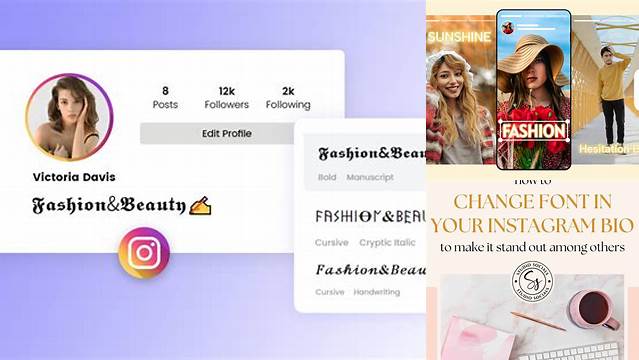
Cool Fonts For Instagram: Make Your Name Stand Out!
Hey guys! Want to make your Instagram profile pop? One of the coolest ways to do that is by using unique fonts in your Instagram name. But let's be real, Instagram doesn't exactly hand you a font buffet, right? So, how do you get those stylish fonts you see on other profiles? Don't worry, I've got you covered! This guide will walk you through everything you need to know about using different fonts for your Instagram name, so you can create a profile that truly reflects your personality or brand. We'll explore why choosing the right font matters, how to actually change your font (it's easier than you think!), and even give you some awesome font ideas to get you started. So, buckle up and get ready to transform your Instagram game!
Why Use Different Fonts for Your Instagram Name?
Okay, so you might be thinking, "Why even bother changing my font? Does it really make a difference?" The short answer? Absolutely! In the crowded world of Instagram, standing out is key. Your profile is often the first impression you make, and the font you use in your name is a subtle but powerful way to grab attention. Think of it as the visual handshake of your profile. A unique font can instantly communicate your vibe, whether it's playful, professional, artistic, or edgy. It helps you create a memorable identity and sets you apart from the millions of other users. Let's dive deeper into the benefits:
- Grabbing Attention: Let's face it, the Instagram feed is a scroll-fest. People are bombarded with content, so you need something that makes them stop and take notice. A unique font is like a little visual firework, catching the eye and making people curious about your profile. Instead of your name blending into the background, it becomes a mini-billboard, signaling that you're someone worth checking out. It's a simple yet effective way to stand out in a sea of sameness. Imagine scrolling through hundreds of profiles and suddenly seeing a name in a funky, handwritten-style font – you'd probably be more inclined to click, right?
- Reflecting Your Brand or Personality: Your Instagram name is a crucial part of your personal or brand identity. It's like your digital signature! The font you choose can be a powerful extension of that identity, communicating your brand's personality without saying a word. Are you a playful and creative brand? A whimsical or quirky font can reflect that. Are you a professional consultant? A clean and modern font might be a better fit. The font should align with the overall message you want to convey. It's about creating a cohesive visual experience for your followers, so they instantly understand what you're about. Think of it as dressing up your name to match your brand's style.
- Creating a Unique Identity: In a world where usernames are often duplicated or very similar, a unique font can be your secret weapon. It helps you establish a distinct presence and makes your profile instantly recognizable. It's like having a custom logo just for your name! This is especially important for businesses and influencers who are trying to build a brand. A unique font can help you solidify your brand identity in the minds of your followers. It's a subtle detail, but it can make a huge difference in how people perceive and remember you. Think of famous brands – their logos and fonts are instantly recognizable. You can apply that same principle to your Instagram name!
How to Change Your Instagram Name Font
Okay, you're convinced – unique fonts are the way to go! But how do you actually change your Instagram name font? Instagram doesn't have a built-in font selection tool (bummer, I know), so we need to get a little creative. But don't worry, it's super easy! We'll use online font generators, which are basically magical tools that convert your text into fancy fonts. Here's the step-by-step process:
- Find an Instagram Font Generator: The internet is overflowing with font generators! A quick Google search for "Instagram font generator" will give you tons of options. Some popular ones include LingoJam, Cool Fonts, and Instagram Fonts. Experiment with a few to see which ones you like best. Each generator has its own unique selection of fonts, so it's worth exploring. Most of these tools are free and super user-friendly, so you don't need to be a tech wizard to use them.
- Type Your Name: Once you've chosen a font generator, you'll usually see a text box where you can type your desired Instagram name. Go ahead and type it in – this is where the magic happens! You can experiment with different versions of your name, like adding symbols or underscores, to see how they look in different fonts. Play around with capitalization too, as some fonts look better in all caps or lowercase.
- Choose Your Font: Below the text box, you'll see a variety of fonts generated from your text. Scroll through the options and find one that you love. This is the fun part! Take your time and consider how each font reflects your personality or brand. Some fonts are bold and attention-grabbing, while others are more delicate and elegant. Think about the overall vibe you want to create and choose a font that fits.
- Copy the Font: Once you've found the perfect font, simply copy the text. Most font generators have a convenient "copy" button, making this step a breeze. You can also manually select the text and copy it using your device's copy function. Make sure you copy the entire text accurately, including any symbols or special characters.
- Paste into Instagram: Now, head over to your Instagram profile and tap "Edit Profile." You'll see a field where you can change your name. Simply paste the font you copied from the generator into this field. And voilà ! Your Instagram name is now rocking a brand new font. Remember, you can only change your name twice within 14 days, so choose wisely!
So, there you have it! Changing your Instagram name font is a simple yet effective way to add personality and flair to your profile. By using online font generators and keeping readability and branding in mind, you can create a unique and eye-catching Instagram name that helps you stand out from the crowd. Go ahead and experiment with different fonts and find the one that truly represents you! Happy font-hunting, guys! I hope this guide has helped you transform your Instagram game and create a profile that truly reflects your unique style or brand.